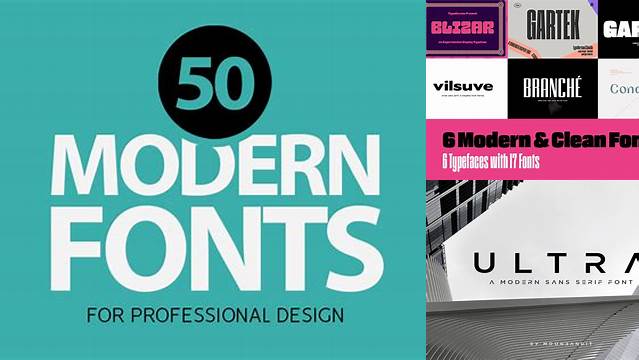
Modern & Clean Fonts: A Designer's Essential Guide
Hey everyone! Let's dive into the awesome world of fonts modern clean! If you're a designer, a content creator, or just someone who appreciates good typography, you're in the right place. Finding the perfect font can make or break your design, and when it comes to making a statement that is both contemporary and uncluttered, modern and clean fonts are your go-to. They exude sophistication, readability, and a timeless appeal. In this comprehensive guide, we'll explore everything you need to know about these versatile typefaces, from their defining characteristics to the best ones to use for various projects. Get ready to elevate your designs with the power of fonts modern clean!
Understanding the Essence of Modern Clean Fonts
So, what exactly makes a font "modern" and "clean"? Well, fonts modern clean generally share a few key attributes. They often boast a minimalist aesthetic, steering clear of excessive ornamentation or elaborate serifs. Think clean lines, balanced proportions, and a focus on functionality. Modern fonts, in particular, have their roots in the early 20th-century design movements like Bauhaus and the International Typographic Style. These movements emphasized simplicity, legibility, and a rejection of historical styles. The term "clean" further emphasizes the font's straightforwardness and lack of visual clutter. A fonts modern clean design should be easy on the eyes, allowing the message to shine through without distraction. These fonts typically offer a sense of sophistication and professionalism. They are versatile and can be used across a wide range of applications, from web design and branding to print materials and user interfaces. The focus is on readability, ensuring that the text is easily understood at a glance. They are not just about aesthetics; they are about effective communication. The choice of a font can significantly impact how a message is received. This also means that clean fonts are often highly legible at various sizes, making them ideal for both headlines and body text. Their neutral appearance makes them adaptable to diverse design styles and color schemes, allowing designers to focus on other visual elements. The essence of fonts modern clean lies in their ability to convey a clear and concise message while maintaining a sense of elegance and sophistication. This makes them a powerful tool for any designer.
Key Characteristics of Modern Clean Fonts
Let's break down the specific characteristics that define a fonts modern clean style. First, you'll often find a sans-serif style. Sans-serif fonts, which lack the small decorative strokes (serifs) at the ends of letterforms, are inherently modern and clean. They contribute to a sense of simplicity and directness. Next, look for geometric shapes and structures. Many modern fonts are based on geometric forms like circles, squares, and triangles, giving them a structured and contemporary feel. Another important aspect is a high degree of legibility. The font should be easy to read at various sizes and on different displays. It's about ensuring the text is accessible and user-friendly. Balance and proportion are key. The design should be well-balanced, with harmonious letterforms. The spacing between letters and words also contributes to the overall clean look. Additionally, a lack of ornamentation is typical. You won't find excessive swirls, shadows, or embellishments. The design focuses on functionality and clarity. The weight of the font is also important. You'll find a range of weights, from light to bold, allowing for versatility in design. However, all these weights maintain the same clean aesthetic. Finally, a sense of neutrality is common. These fonts don’t lean heavily towards any specific aesthetic, making them adaptable to different design projects and branding styles. Recognizing these characteristics will help you identify and choose the best fonts modern clean for your projects.
Exploring the World of Sans-Serif Fonts: The Foundation of Modern Clean Design
As we've touched on, fonts modern clean often go hand-in-hand with sans-serif fonts. But what exactly makes these fonts so special? And why are they the cornerstone of modern design? Let's find out. Sans-serif fonts, meaning "without serifs" (the small decorative strokes), are the quintessential choice for a clean aesthetic. Their simplicity and straightforwardness create a sense of modernity and clarity. The absence of serifs contributes to a more streamlined look, making them ideal for contemporary design. They are incredibly versatile and work well in a variety of contexts. From websites and apps to print materials and signage, sans-serif fonts offer a timeless appeal. They also tend to be highly legible. The clean lines and open letterforms make them easy to read, even at smaller sizes. This makes them perfect for body text and headlines alike. Because they are often neutral, they work well with various design styles and color schemes, offering flexibility to the designer. This versatility is a key reason why sans-serif fonts remain a favorite in the design world. Moreover, sans-serif fonts often convey a sense of professionalism and trustworthiness. Their clean look can elevate a brand's image. The history of sans-serif fonts goes back to the early 20th century, when designers began to prioritize functionality and simplicity. This commitment to uncluttered design made them a natural fit for the modern era. It's all about clarity and effective communication. The choice of a sans-serif font helps a brand communicate its message clearly. This makes these fonts a staple in the world of fonts modern clean.
Top Sans-Serif Fonts for Modern Clean Aesthetics
Okay, so now we know why sans-serif fonts are essential. But which ones are the best? Let's explore some top contenders for fonts modern clean designs. First up is Helvetica. This iconic font is known for its clean lines, excellent legibility, and neutrality. It's a classic for a reason and works well in a huge range of applications. Next, we have Arial, a widely used font that’s similar to Helvetica but is often more readily available. It's a great option for everyday use. Then there's Futura, a geometric sans-serif font that exudes sophistication and modernity. Perfect for a high-end brand. Another great choice is Open Sans, a popular open-source font that is known for its readability and versatility. It's a go-to for web design. Also, we have Montserrat, a modern sans-serif font inspired by the architecture of the Montserrat neighborhood in Buenos Aires. It's stylish and unique. Another option to consider is Lato, a clean and friendly font with rounded letterforms. It’s perfect for a softer look. Finally, there is Proxima Nova, a highly versatile font that is used by many brands, offering great legibility and a clean aesthetic. These options are well-suited for modern clean designs. Each font brings its own unique personality while maintaining a consistent sense of clarity and simplicity. Whether you're designing a website, a logo, or a print ad, these sans-serif fonts will help you achieve the fonts modern clean aesthetic you're aiming for.
The Power of Minimalism: Fonts That Embrace Simplicity
Minimalism has had a huge impact on modern design. Let's talk about fonts modern clean and how they embrace simplicity. Minimalism in design focuses on stripping away unnecessary elements to highlight the essentials. When it comes to typography, this means fonts that prioritize functionality, legibility, and a clean aesthetic. These fonts are often characterized by their simplicity and a lack of ornamentation. They use clear lines, balanced proportions, and a focus on the message. This means creating a design that is easy to understand. A minimalist font can make a design look sleek, modern, and sophisticated. By eliminating visual clutter, these fonts allow the content to take center stage. This is essential for effective communication. Minimalist fonts are often highly versatile. They work well in a variety of contexts, from websites to print materials. They are adaptable to different design styles and color schemes. They can communicate a sense of professionalism and elegance. The choice of the right font can significantly impact a brand's image and the way its message is perceived. Minimalist fonts help designers create a sense of calm and order. They provide a clean and uncluttered canvas. By embracing simplicity, these fonts enhance the user experience, allowing the audience to focus on the core message. This makes them essential for fonts modern clean designs.
Choosing Minimalist Fonts for Your Projects
Choosing the right minimalist fonts for your projects is crucial. Here's how to select the best fonts modern clean options. Firstly, prioritize legibility. The font should be easy to read at different sizes and on various devices. This ensures that your message reaches everyone. Consider the font's weight and style. Opt for a font that offers a range of weights, from light to bold, for design flexibility. Make sure all weights are suitable for both headlines and body text. Assess the font's overall appearance. It should align with your brand's personality and the overall aesthetic of your project. Some minimalist fonts have a more geometric feel, while others are more rounded. Consider the font's spacing. Good spacing between letters and words is essential for readability and a clean look. Test the font on different backgrounds and in various layouts. This ensures that it works well in different contexts. Explore the font's character set. Make sure it supports the special characters and symbols that you need. Consider the license and usage rights. Choose fonts that you are legally allowed to use. Examples of excellent minimalist fonts include Open Sans, Montserrat, and Lato. These fonts embody the minimalist aesthetic with their clean lines, simple shapes, and great readability. By carefully selecting these fonts, you can enhance the user experience and make your designs more effective. By following these steps, you can confidently select the best minimalist fonts for your fonts modern clean design projects.
Pairing Fonts for a Modern and Clean Look
Choosing the right font is important, but so is pairing fonts. Pairing fonts is the art of combining different typefaces to create a harmonious and visually appealing design. Let's get into how to do it well, especially when using fonts modern clean. When pairing fonts, the goal is to create visual interest while maintaining clarity and readability. A good font pairing will complement each other without competing for attention. One popular approach is to pair a clean sans-serif font with a serif font. This creates a contrast that is both modern and sophisticated. The sans-serif font can be used for headings and the serif font for body text, or vice versa. Another approach is to pair different weights or styles of the same font family. This maintains a consistent visual identity while adding variety. Mixing fonts that share similar characteristics, such as the same x-height or a similar overall shape, can also result in a harmonious pairing. When working with fonts modern clean, it's essential to choose fonts that are both legible and aesthetically pleasing. Avoid overly decorative or complex fonts that can detract from the clean aesthetic. Consider the purpose of your design and the message you want to communicate. Choose font pairings that align with your brand's personality and the overall tone of your project. Experiment with different pairings to see what works best. The right font pairing can enhance your design and make your message more effective. Careful selection and thoughtful execution are key to achieving the perfect balance. This is especially true when it comes to achieving a fonts modern clean look.
Font Pairing Tips and Best Practices
Here are some useful tips and best practices for font pairing. First, establish a clear hierarchy. Use different font sizes, weights, and styles to differentiate headings, subheadings, and body text. This ensures that your design is easy to read and navigate. Create contrast. Pairing fonts with contrasting styles can create visual interest and make your design more engaging. However, be careful not to overdo it. Keep it consistent. Use a limited number of fonts throughout your project to maintain a cohesive visual identity. The use of too many fonts can make your design look cluttered and unprofessional. Ensure readability. Always prioritize readability, especially for body text. Choose fonts that are easy to read at the size they will be used. Consider the mood and tone. Select font pairings that align with the overall mood and tone of your project. For instance, a modern, clean design may benefit from a minimalist sans-serif pairing. Test your pairings. Test your font pairings on different devices and in various layouts to ensure that they work well in all contexts. Remember the importance of balance and harmony. The fonts should complement each other. Avoid using fonts that are too similar, as they may look bland, or that are too different, as they may clash. When using fonts modern clean, always make sure to choose fonts that maintain this essence. These simple tips will help you achieve an effective and visually appealing design.
The Role of Font Weight and Style in Modern Clean Design
Font weight and style play a crucial role in creating a modern and clean design. Let's explore how these factors contribute to the overall aesthetic. Font weight refers to the thickness of the strokes of a font. Common weights include light, regular, bold, and black. Weight adds emphasis and helps to establish a visual hierarchy. In a modern clean design, using different weights of the same font family can be very effective. For instance, you might use a bold weight for headings and a regular weight for body text. This creates contrast and guides the reader's eye. Font style refers to variations within a font family, such as italics, condensed, or extended. Italics can add a touch of elegance or emphasis, while condensed styles can save space. Extended styles can be used for headlines or decorative purposes. When incorporating font weights and styles, it's important to use them strategically. Too much variation can make a design look cluttered. Conversely, too little variation can make it look bland. Choose a font family that offers a good range of weights and styles. This provides the flexibility to create a dynamic and visually engaging design. Consider how the different weights and styles will work together. They should create a harmonious and balanced composition. Always prioritize readability. Make sure that the chosen weights and styles are easy to read, especially for body text. In designs using fonts modern clean, the strategic use of weight and style can enhance the clean aesthetic and improve readability.
Utilizing Font Weight and Style Effectively
Here's how to effectively use font weight and style in your designs. Firstly, define a visual hierarchy. Use different font weights to distinguish headings, subheadings, and body text. This guides the reader's eye and creates a clear structure. Create contrast to make your design more visually appealing. Pair lighter weights with heavier weights or regular weights with italics. This adds interest without overwhelming the design. Maintain consistency. Stick to a consistent style across your project. Using too many different weights and styles can make the design look cluttered. Choose a font family with a good range of weights and styles, allowing for design flexibility. When choosing weights, be mindful of readability. Ensure that all weights are easy to read, especially for body text. It's important to consider the context of your design. Adjust the weight and style based on the purpose of your project and the audience. Test your designs on different devices and in various layouts. This ensures that the font weights and styles are consistent across all platforms. Remember that simplicity is key. In a modern clean design, it's better to use a few well-chosen weights and styles rather than many. By effectively using font weight and style, you can improve readability, create a clear visual hierarchy, and enhance the overall aesthetic. The use of fonts modern clean will significantly benefit from the careful application of these elements.
Typography in Web Design: Modern Clean Fonts for the Digital World
Web design relies heavily on typography, and choosing the right fonts modern clean is key to creating an effective and engaging website. In the digital world, readability and user experience are critical. Modern clean fonts can greatly enhance both. These fonts often feature clean lines, good legibility, and a focus on functionality, making them perfect for web content. Consider the device and screen size. The font should be easy to read on all devices. Responsive web design is key. The font needs to adapt to different screen sizes without losing legibility. Optimize the font for web use. Select fonts that are optimized for web browsers to ensure quick loading times. Ensure the font is web-safe or consider using web fonts for greater design flexibility. Focus on usability. Select fonts that enhance the overall usability of your website, improving the user experience. Take into consideration accessibility. The font needs to be accessible to users with visual impairments. Consider the overall design of your website. Choose fonts that complement your website's style and visual identity. Use a limited number of fonts to maintain consistency. Too many fonts can make a website look cluttered and unprofessional. Test the fonts on different browsers and devices to ensure that they render correctly. Remember, your typography is an important part of your website's overall design. The right fonts modern clean can make your website look more professional and user-friendly.
Choosing Fonts for Web Design: Best Practices
Selecting the right fonts for web design involves several best practices. First, prioritize readability. Choose fonts that are easy to read at different sizes and on different devices. Legibility is paramount for a good user experience. Consider the font's legibility on various backgrounds and color combinations. The contrast between text and background should be sufficient. Use a limited number of fonts. Sticking to two or three fonts will help maintain a consistent and professional look. Opt for web-safe fonts. These fonts are pre-installed on most devices. This ensures that your website will display correctly. If you choose custom fonts, be sure to use web fonts. Web fonts are optimized for web browsers and can be easily embedded in your website. They offer greater design flexibility. Consider the font's file size. Large font files can slow down your website. Choose fonts with a small file size. Use a font pairing tool to find complementary fonts. These tools will help you identify fonts that work well together. Make sure that your chosen fonts are consistent with your brand's identity. Choose fonts that align with your brand's personality and overall design. Test your website on different browsers and devices to ensure that the fonts are rendering correctly. Always prioritize usability and accessibility. The goal is to create a website that is both visually appealing and easy to use. These best practices will help you choose the right fonts modern clean for your website.
Fonts in Branding: Creating a Cohesive Visual Identity
Fonts play a vital role in branding, helping to create a cohesive visual identity. Let's explore how fonts modern clean are used to establish a strong brand presence. Typography is a crucial element of brand identity. The font choices communicate the brand's personality and values. Modern clean fonts are often preferred for branding. They convey a sense of professionalism, trustworthiness, and modernity. They are versatile and adaptable to various brand styles. A well-chosen font can make a brand memorable and recognizable. When selecting a font for branding, consider the brand's target audience. The font should appeal to the intended audience and match their expectations. Choose a font that aligns with your brand's values and personality. If the brand is modern and minimalist, a clean sans-serif font would be perfect. It's crucial to use the same font consistently across all branding materials. This creates a cohesive visual identity. This includes logos, websites, social media, and print materials. When choosing a font, make sure it is legible and easy to read. Ensure that the font is adaptable and can be used in different contexts. A brand font should be timeless. It shouldn't go out of style. Always create a brand style guide that includes your fonts, along with their usage guidelines. Make sure to consider the overall design of the brand. Your font should integrate well with the other design elements. The right fonts modern clean can significantly strengthen your brand's presence. It will enhance your brand's recognition and impact.
Selecting Fonts for Brand Identity: Key Considerations
When selecting fonts for brand identity, you need to consider several key factors. First, understand your brand's personality and values. Choose fonts that reflect these qualities. Is your brand modern and innovative? A clean sans-serif font is a great choice. Consider your target audience. The font should appeal to your intended audience and resonate with their preferences. Ensure legibility and readability. The font needs to be easily readable in all contexts, from large headlines to small body text. Select a font that is versatile and adaptable. It should work well in various applications. Consider the font's character set. Make sure the font supports all the necessary characters, including special characters and symbols. Check for licensing and usage rights. Ensure that you have the legal right to use the font. Maintain consistency across all brand materials. Use the same font for your logo, website, and all other branding elements. Create a brand style guide that outlines your font usage guidelines. This ensures consistent application of your fonts across all your brand materials. Think about the font's long-term viability. Choose a font that will still be relevant and effective for years to come. Test your fonts on different platforms and in various contexts. This ensures that they will display correctly. By carefully considering these factors, you can select fonts that will strengthen your brand identity and make it more memorable. Choosing the right fonts modern clean will also help achieve your desired brand aesthetic.
Typography for Print: Timeless Elegance with Clean Fonts
Typography in print is crucial for creating a lasting impression, and fonts modern clean are perfect for achieving timeless elegance. Print materials require careful font selection for readability and visual appeal. Modern clean fonts excel in this context. They offer a clean, uncluttered look that is ideal for print. They're highly readable, which is essential for printed materials. They also exude professionalism and sophistication. These fonts are versatile, making them suitable for a variety of print projects. From brochures and magazines to posters and business cards, modern clean fonts enhance the overall aesthetic. Consider the format and size of your print materials. This influences the font size and style that you should use. Prioritize readability at a glance. Printed materials require fonts that are clear and easy to read at arm's length. Choose fonts that complement the overall design of your print pieces. Ensure that the font is appropriate for the message and the brand. Test the font on a printed proof. This lets you see how the font looks in print. Ensure that the color contrast is sufficient to achieve good readability. Use the same font consistently across all print materials. This will create a cohesive look and feel. Consider the paper type and printing process. Different paper types can affect how the font appears. The right fonts modern clean will create visually appealing and effective print designs.
Choosing Fonts for Print Projects: Best Practices
Here are some best practices for selecting fonts for your print projects. First, prioritize legibility. Choose fonts that are easy to read in print, especially for body text. A font's readability is especially important. Consider the size and format of the print piece. This affects the font size and style that you should use. Choose fonts that complement the design and the message. Ensure that the fonts align with your brand's visual identity. Use a limited number of fonts. Sticking to two or three fonts can help maintain a clean and professional look. Select fonts that are suitable for print. Ensure that the font is high quality and will print well. Review the font's licensing and usage rights. Ensure that you have permission to use the font in your print project. Test the font on a printed proof to see how it looks. Adjust the font size and style to optimize readability. Ensure that the font is compatible with the printing process. Test for color contrast. Make sure there's sufficient contrast between the font and the background for easy readability. Always prioritize readability in every print project, so that the message can be delivered clearly. These best practices will help you choose the right fonts modern clean for your print projects.
Using Fonts in User Interface (UI) Design: Making Digital Interactions Seamless
User interface (UI) design is another area where fonts modern clean can excel, creating seamless digital interactions. In UI design, typography plays a key role in usability and user experience. Modern clean fonts are perfect for UI design because they offer a clean and uncluttered look that enhances the user interface. These fonts are highly legible, especially on screens, and can greatly improve the user experience. They are also versatile, allowing for a variety of design styles. They contribute to a sleek and modern aesthetic, which is ideal for the digital world. When selecting fonts for UI design, consider the user's interaction. Prioritize readability at various sizes and on different devices. Choose fonts that are web-safe or optimized for digital displays. Ensure that the font is consistent throughout the user interface. This creates a cohesive and intuitive experience. Test the font on different devices and in various layouts. This makes sure the font displays correctly. Use the font to guide the user's eye and to create a clear visual hierarchy. The right fonts modern clean will make your UI look both stylish and easy to use.
Best Fonts for UI Design and Improving User Experience
Here are some of the best fonts to improve UI design and user experience. Firstly, we have Roboto. Google's Roboto is widely used. It’s known for its clean lines, excellent legibility, and good screen rendering. Next, we have Open Sans. Open Sans is also a popular choice. It's designed for screen use and offers great readability, making it an excellent option for UI design. Then there’s Lato. Lato is a versatile sans-serif font that is known for its friendly and approachable appearance. It is great for both headlines and body text. Another great choice is Montserrat. Montserrat is a modern sans-serif font with a geometric feel. It's stylish and legible, perfect for modern UI designs. Another good option is Source Sans Pro. Designed by Adobe, Source Sans Pro is optimized for user interfaces. It's known for its clarity and excellent readability. Consider the font's weight and style to create a clear visual hierarchy. Using different font weights and styles enhances clarity and guides the user’s eye. Make sure that the font is consistent throughout your UI design. This ensures a cohesive and intuitive user experience. Always prioritize readability and usability. Choosing these fonts will contribute to an improved user experience and make your UI more appealing. To accomplish this, you can take advantage of the power of fonts modern clean.
Combining Fonts and Colors: A Symphony of Design
Combining fonts and colors to achieve a cohesive and visually appealing design is essential, and it's especially true when working with fonts modern clean. The fonts and colors must work together to communicate the message effectively and enhance the overall aesthetic. Start by choosing a color palette that aligns with your brand or project. Then, choose fonts that complement those colors. Consider the contrast between the font color and the background. High contrast makes the text easier to read. In this case, choose colors that work well together. Avoid colors that clash or distract from the message. A monochromatic color scheme can be very effective. Use a variety of shades of the same color to create visual interest. Consider the mood you want to convey. Warmer colors, such as red and orange, can create a sense of energy. Cooler colors, like blue and green, can create a sense of calm. Experiment with different combinations to see what looks best. Ensure that the font is visible and easy to read. Make sure that the colors don't interfere with readability. Always use the same color scheme throughout the project to create a cohesive look and feel. Make sure that the colors and fonts enhance the overall message. Always test the combination on different devices and in various layouts. The right fonts modern clean combined with the right colors can make your designs more engaging and effective.
Best Practices for Font and Color Harmony
Here are some best practices to create harmony between fonts and colors. Firstly, choose a color palette that complements your font choices. The colors and fonts should create a balanced and visually appealing design. Ensure that there is sufficient contrast between the font color and the background color. This is essential for readability. Avoid using too many colors or fonts. Keep the design simple and clean to maintain a modern aesthetic. Consider the mood you are trying to convey. Select colors and fonts that reflect that mood. Test your color and font combinations on different devices and in various lighting conditions. Adjust the colors and fonts as necessary to ensure optimal readability. Use a color contrast checker to ensure that your text meets accessibility standards. This ensures that the design is accessible to everyone. Maintain consistency throughout your project. Use the same color and font combinations to create a unified visual identity. Consider using a color palette generator to find colors that work well together. This can help you create a harmonious design. With these best practices, you can maximize the potential of fonts modern clean.
Licensing and Usage Rights: Ensuring Legal Compliance
Navigating licensing and usage rights is important, especially when dealing with fonts modern clean. It's essential to understand the legal implications of using fonts in your projects. Always check the font's license. This will tell you how you are allowed to use the font. Some fonts are free for personal use only, while others require a license for commercial use. Understand the different types of licenses. Common licenses include personal use, commercial use, and desktop licenses. Pay attention to the terms of the license. Some licenses restrict the use of the font in certain ways. For example, it may not be allowed to use the font in a logo. Determine the scope of your project. If you are designing a website, you may need a web font license. If you are creating print materials, you may need a print license. Keep records of your font licenses. This will help you to stay compliant. If you are unsure about the license, contact the font foundry or the seller for clarification. Be aware of the consequences of using a font without a license. You could face legal action. Always obtain the proper licenses before using a font. With fonts modern clean, you will ensure legal compliance and protect yourself. It’s a must-do.
Understanding Font Licenses and Legal Considerations
When working with fonts modern clean, understanding font licenses and legal considerations is crucial. Firstly, familiarize yourself with the different types of font licenses. These usually include personal use, commercial use, and desktop licenses. Read the license agreement carefully to understand the terms and conditions. Pay attention to the permitted uses, restrictions, and any fees associated with the license. For example, you might need a separate license for web use or for embedding the font in an app. Understand the scope of your project and its intended use. Determine whether your project falls under personal or commercial use. Commercial use often requires a paid license. Keep records of your font licenses and any payments made. This helps to ensure compliance and provides proof of your rights to use the font. Understand the implications of using a font without a proper license. Unauthorized use can result in legal consequences. Check for any restrictions on modifications or redistribution of the font. Some licenses may prohibit altering the font or sharing it with others. If you are unsure about any aspect of the license, seek legal advice or contact the font foundry for clarification. Respect the intellectual property rights of the font designers and foundries. Always make sure you are complying with all the legal obligations when using fonts modern clean in your designs.
Finding the Right Font: Resources and Tools for Modern Clean Typography
Finding the right font is essential for creating a fonts modern clean design. Luckily, there are numerous resources and tools available to help you. Start by exploring font libraries. Websites like Google Fonts offer a wide selection of free and open-source fonts. Adobe Fonts provides access to a large library of high-quality fonts. FontShop and MyFonts are popular platforms for finding premium fonts. Use font pairing tools to discover complementary fonts. These tools can suggest font combinations. Consider using font identification tools. If you see a font you like, tools like WhatTheFont can help you identify it. Look for design inspiration. Websites like Behance and Dribbble can provide inspiration for font choices. Search for font reviews and articles. Reviews can provide valuable insights into the pros and cons of different fonts. Read about the latest trends in typography. Keeping up with trends can help you to make informed font choices. Consider the design context. The choice of font should be appropriate for the project. When choosing a font, consider the target audience. Use tools to preview fonts. Make sure the font looks right in different contexts. Choose the right font for the job. These resources and tools will assist you when it comes to fonts modern clean.
Top Resources for Finding Modern Clean Fonts
Here are some top resources to help you find fonts modern clean. Google Fonts is an excellent place to start, offering a vast library of free and open-source fonts. It also has great filtering options. Adobe Fonts (formerly Typekit) is another great option. If you're an Adobe Creative Cloud subscriber, you have access to a huge library of premium fonts. MyFonts is a comprehensive marketplace with a huge selection of fonts from various foundries. You can also find many great fonts here. FontShop is another reputable source for premium fonts, offering a curated selection of high-quality typefaces. DaFont is a popular website that offers a wide range of fonts. However, be sure to check the licensing before using any font from this site. Behance and Dribbble are great for getting design inspiration. You'll be able to see how different fonts are used in real-world projects. Use websites like FontPair to find font pairings. They'll show you what fonts work well together. Consider using sites like Typewolf for curated font selections and trends. There are many excellent resources. These resources will guide you when searching for fonts modern clean.
Future Trends in Modern Clean Typography
The field of typography is always evolving. Staying up-to-date on the latest trends will help you create fonts modern clean designs. One trend is a focus on minimalism. This means fonts that are clean, simple, and easy to read. Another is the use of geometric shapes. Many modern fonts are based on geometric forms. This lends a contemporary feel. Font families are expanding. Designers are creating more comprehensive font families, with a wide range of weights and styles. The use of variable fonts is increasing. Variable fonts allow designers to adjust the weight, width, and style of a font within a single file. This provides flexibility and design options. There's a trend towards more accessible typography. Designers are paying more attention to legibility and usability. This ensures designs are inclusive. The focus is on readability. The best designs are legible and effective. There is an increased emphasis on the use of technology in typography. Designers are using new tools and techniques to create innovative designs. There is also a focus on customization. Designers are looking for fonts that can be customized to meet specific needs. Be mindful of the influence of branding. Fonts play a key role in brand identity. As the use of technology increases, expect even more innovation in the field of fonts modern clean.
Anticipating the Next Big Thing in Clean Font Design
Let's explore what the future holds for fonts modern clean. Expect to see an increase in the use of variable fonts. These fonts offer unmatched flexibility in design. A greater focus on accessibility will be seen, ensuring all users have a good experience. There will also be more experimentation with geometric shapes and structures. Designers will be pushing the boundaries of what's possible. The demand for unique and distinctive fonts is on the rise. These fonts make a design stand out. Expect more innovative approaches to font pairing. Designers will seek new and creative ways to combine fonts. As technology advances, expect new methods of typography. This includes AI-powered design tools. Also, designers will be focusing on customization. This will allow brands to create tailored typography. Simplicity will continue to be important. Expect a continued emphasis on clean lines and good legibility. Designers will focus on the digital experience. The fonts will adapt to different devices and screens. Expect a greater emphasis on sustainable design. Choose fonts that are environmentally friendly. These are some of the future trends in the realm of fonts modern clean.
Conclusion: Elevate Your Designs with Modern Clean Fonts
Fonts modern clean offer a wealth of benefits. They enhance readability, convey a sense of professionalism, and elevate the overall design. By understanding the characteristics of these fonts, you can choose the perfect typefaces for any project. Remember the key elements: simplicity, legibility, and versatility. Make sure that you choose fonts that align with your brand or the overall aesthetic of your project. The right choice will make your designs look more professional. Always be sure to consider the context of your design. By using the right font, your message will be effectively delivered. Embrace the power of font pairing. Use a variety of weights and styles to create a visually appealing and engaging design. Remember the importance of licensing and legal compliance. Make sure that you have the correct licenses for your font. You can enhance your projects with the right fonts modern clean. Choose the best ones, and keep creating and designing!